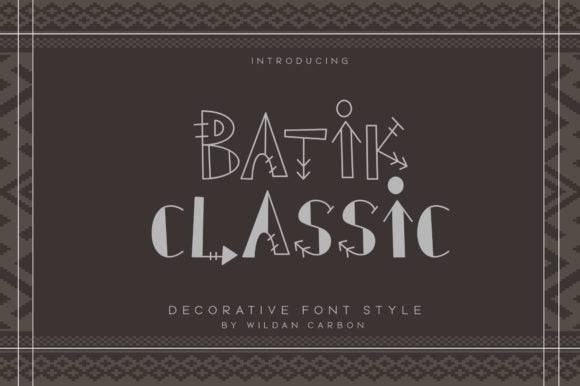
Batik Classic Font for Cricut, Silhouette and Printable Designs
This is a stylized decorative font drawing from batik design influences, offering bold character shapes suited for cutting machines, print layouts, and ethnic-inspired branding. Batik Classic brings artisanal charm to digital crafting workflows and printable assets.
As a type-focused creative file, it enhances the font entity's role in personal and commercial design projects—from vinyl decals to digital invitations—while supporting compatibility across modern design software and machines.
- Unique handcrafted look for cultural designs
- Great for heritage-themed or decorative branding
Q: What kind of font is Batik Classic?
A: It's a decorative font inspired by batik artistry, perfect for cultural and ornamental design projects across digital and print formats.
| Ethnic Pattern Influence | Yes – Inspired by batik art | No | No |
| Cultural Design Suitability | Excellent – Themed for heritage style | Neutral | Unrelated |